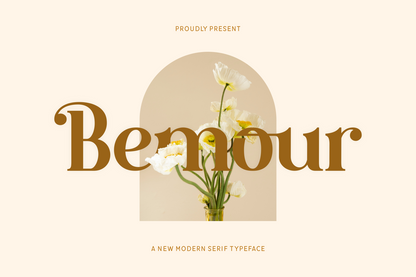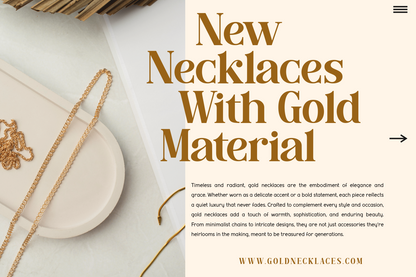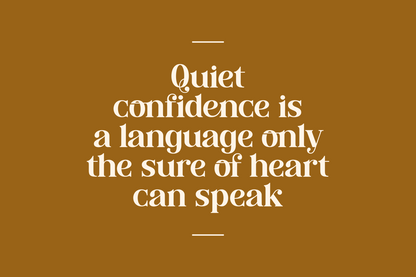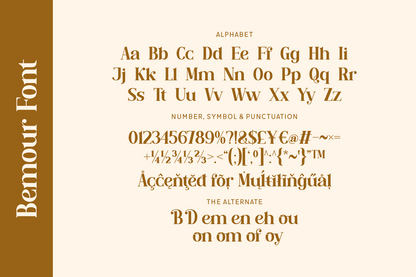
Bemour is a graceful and modern serif typeface that effortlessly blends classical elegance with bold, artistic flair. Its high-contrast strokes, stylish ligatures, and soft curves exude a refined sophistication, making it perfect for branding, editorial design, and luxury product packaging. What sets Bemour apart is its subtle decorative touches that lend every letter a warm, expressive personality.
Whether you're crafting a poetic quote, an upscale fashion headline, or a minimalist invitation, Bemour brings your typography to life with charm and confidence.